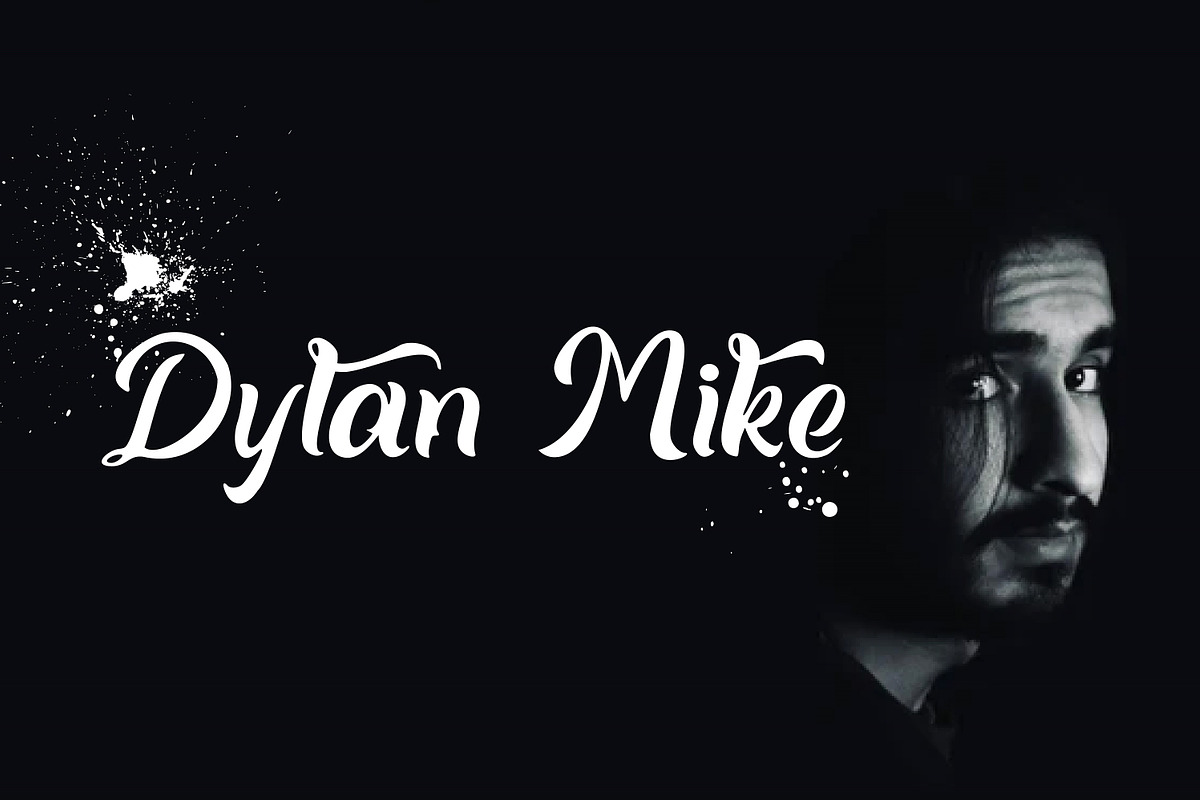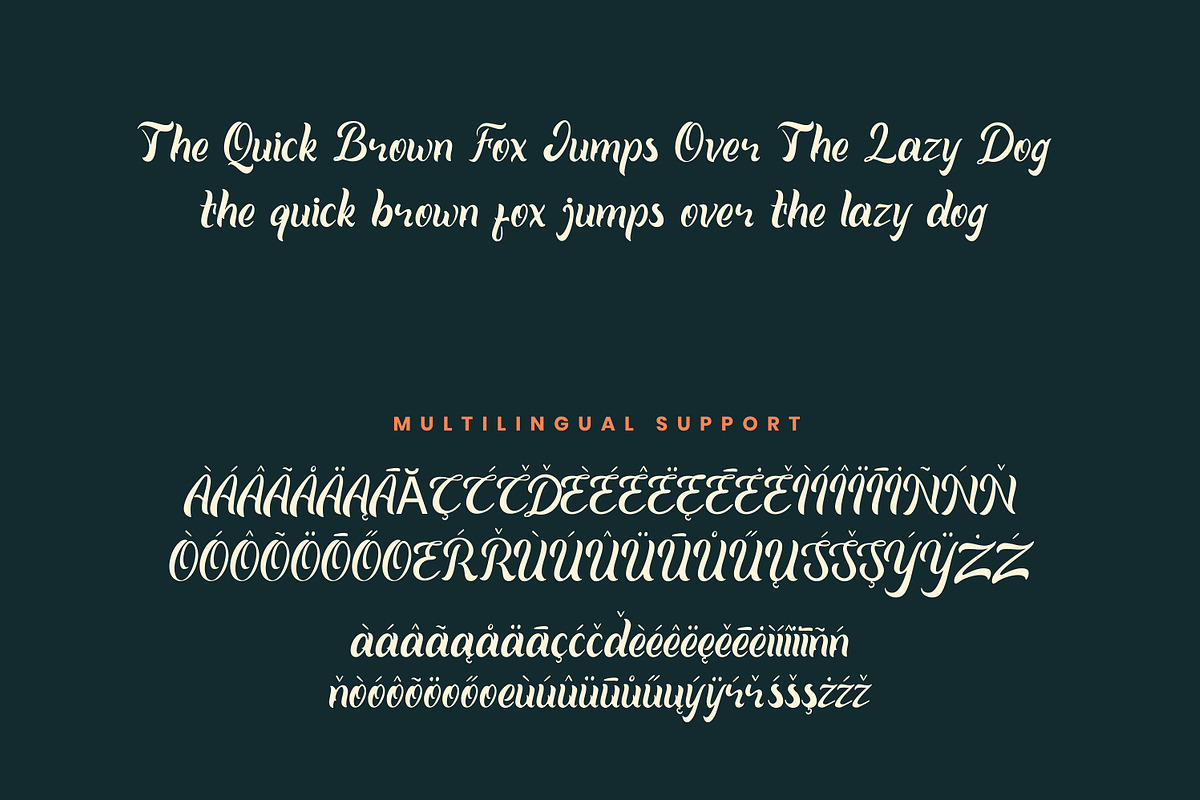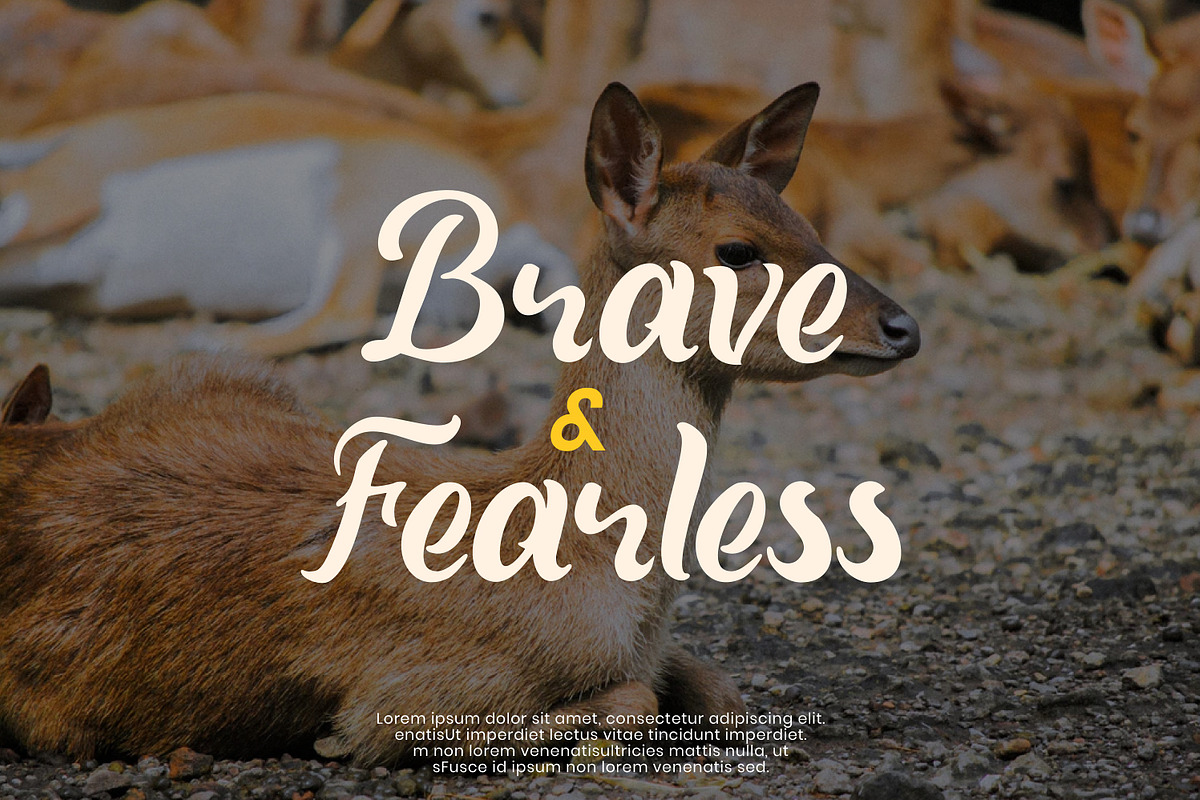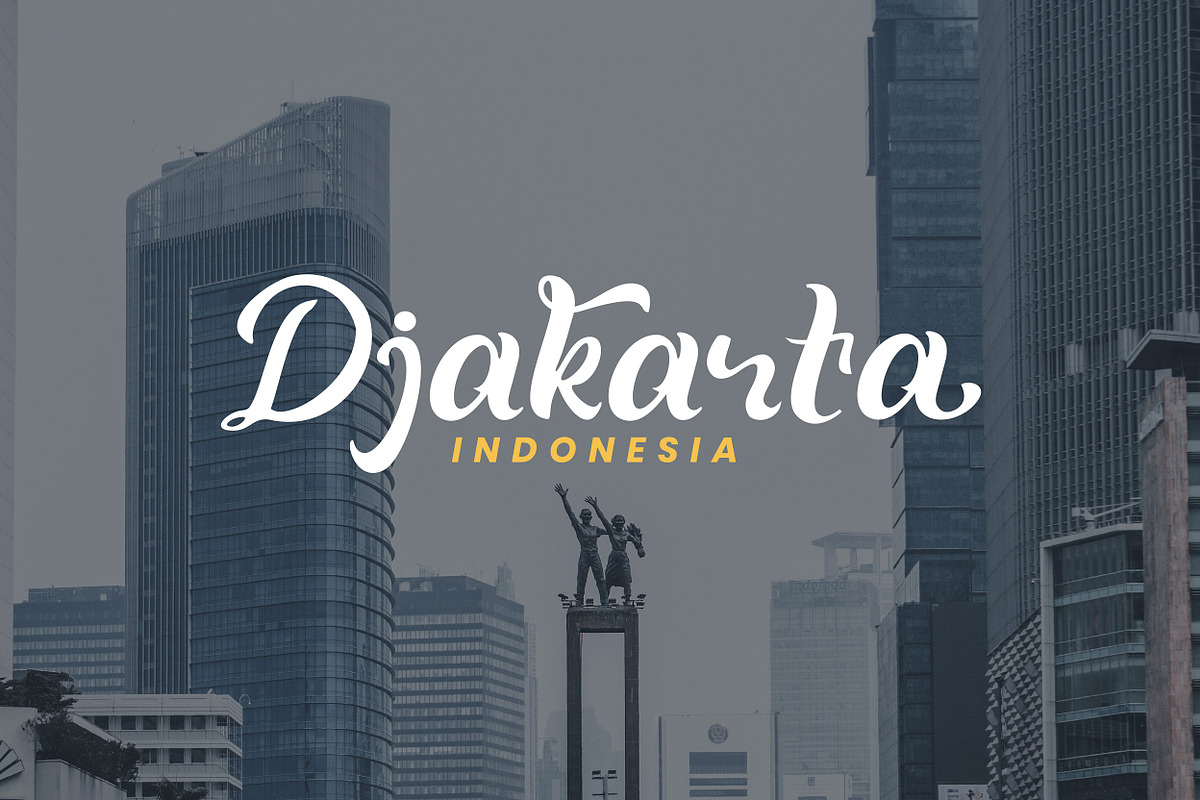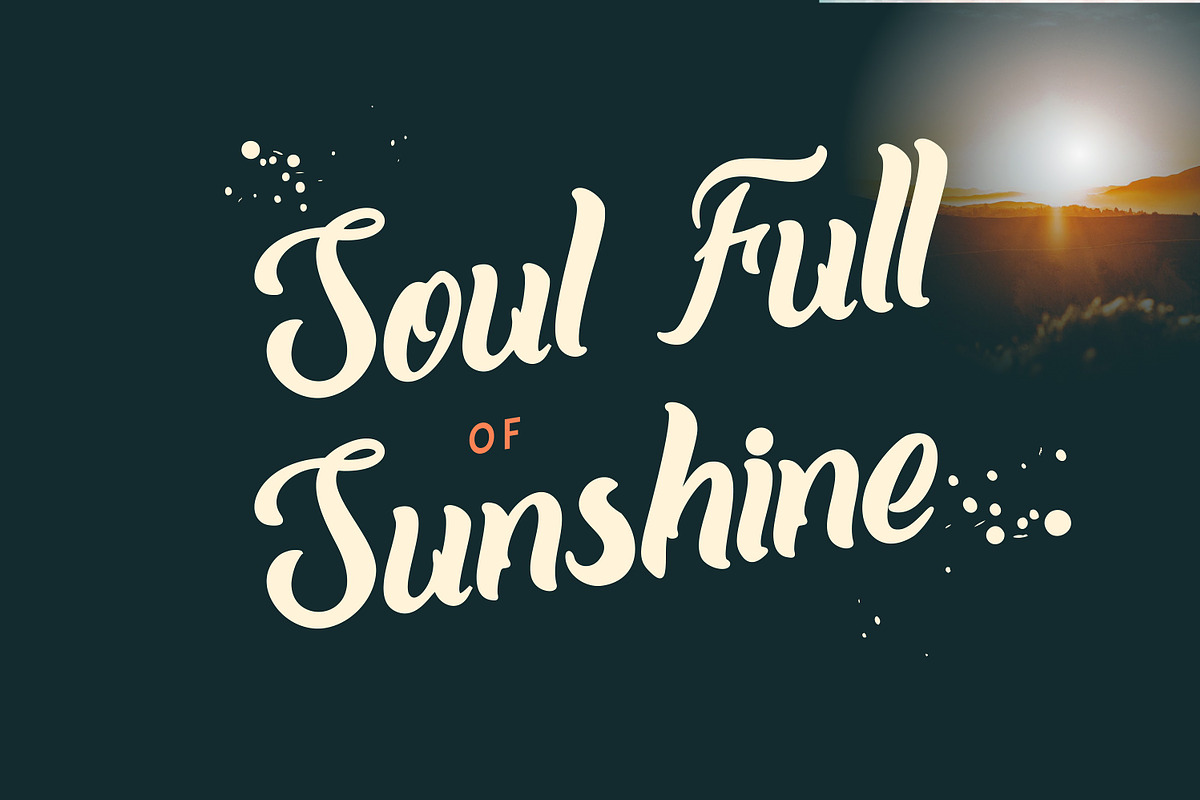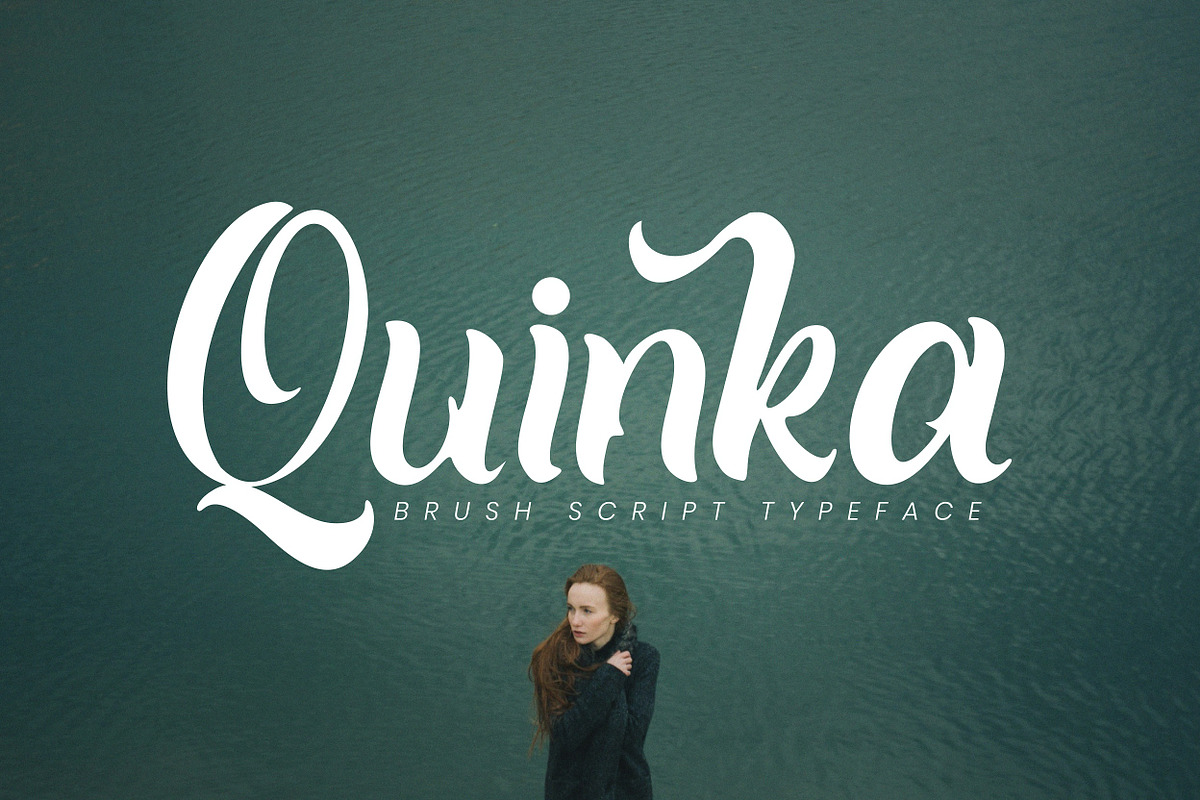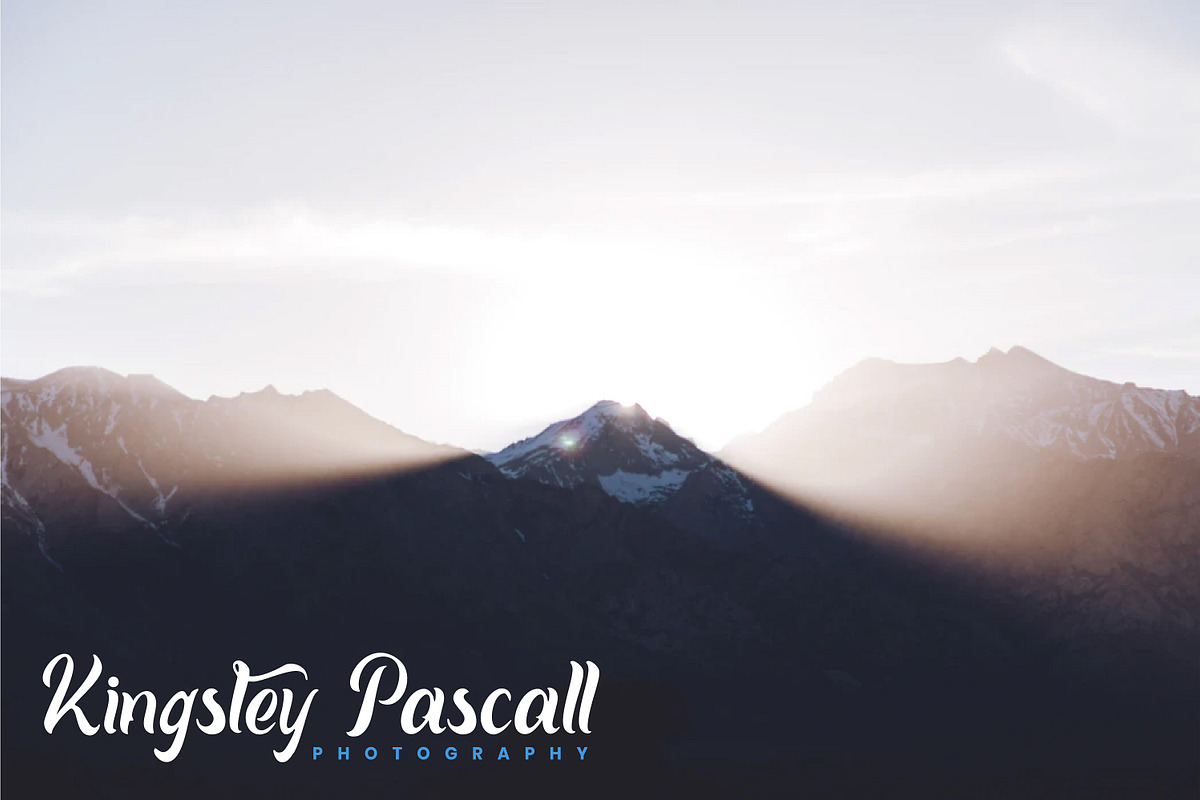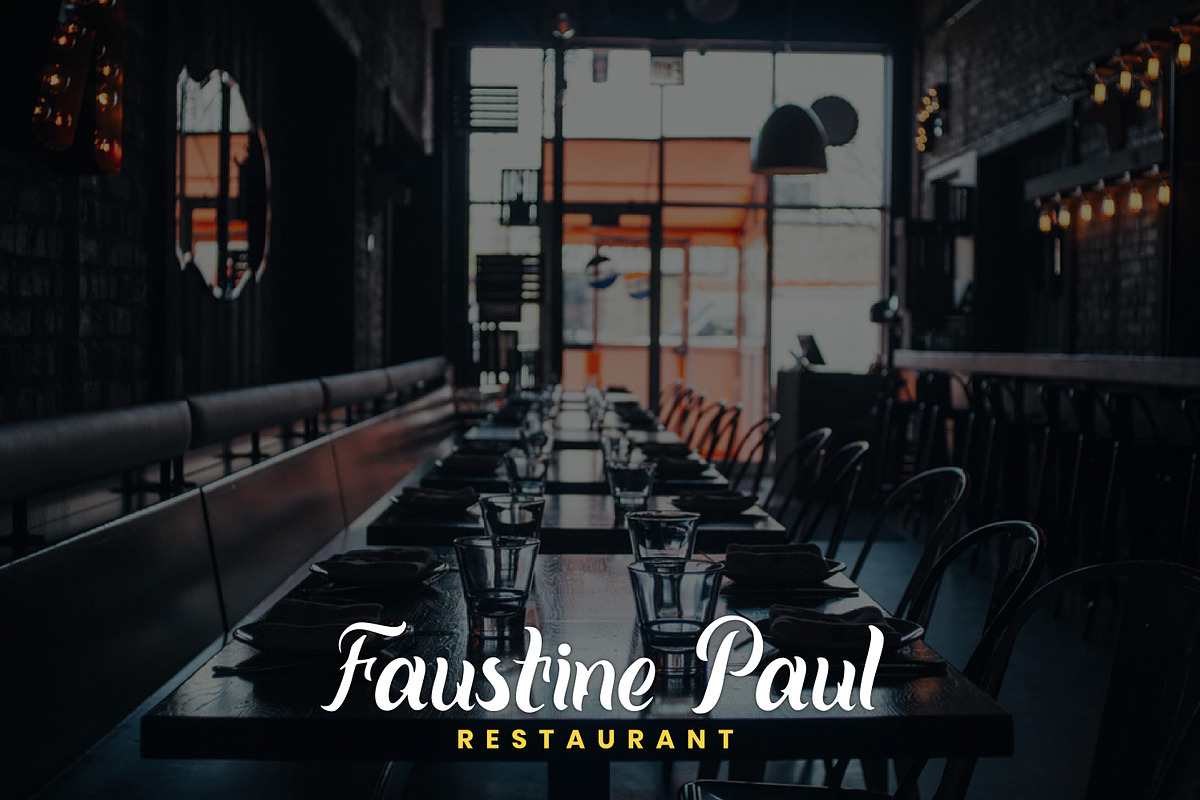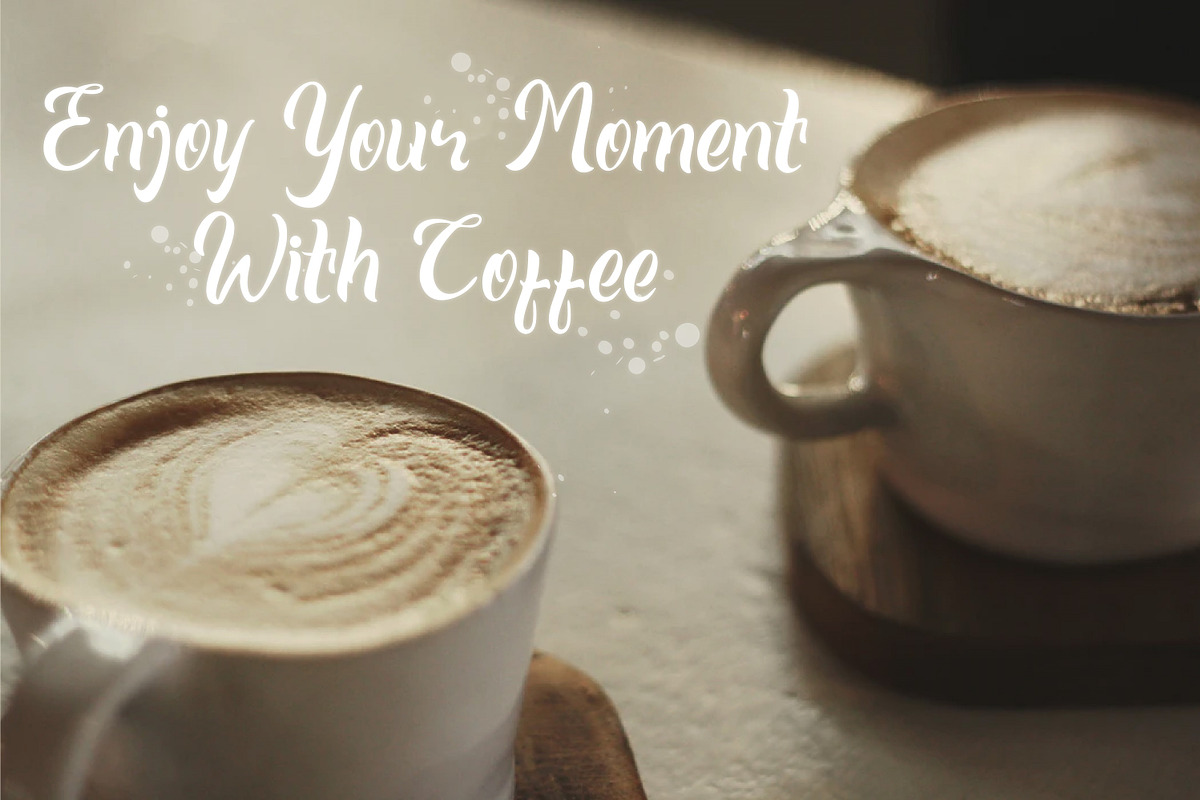
Quinka - Casual Script Font
Introducing Quinka - A Casual Script Font
Quinka is a casual and clean handwritten font. Quinka will look outstanding in any context, whether it’s being used on busy backgrounds or as a standalone headline! This font is PUA encoded which means you can access all of the glyphs and swashes with ease!